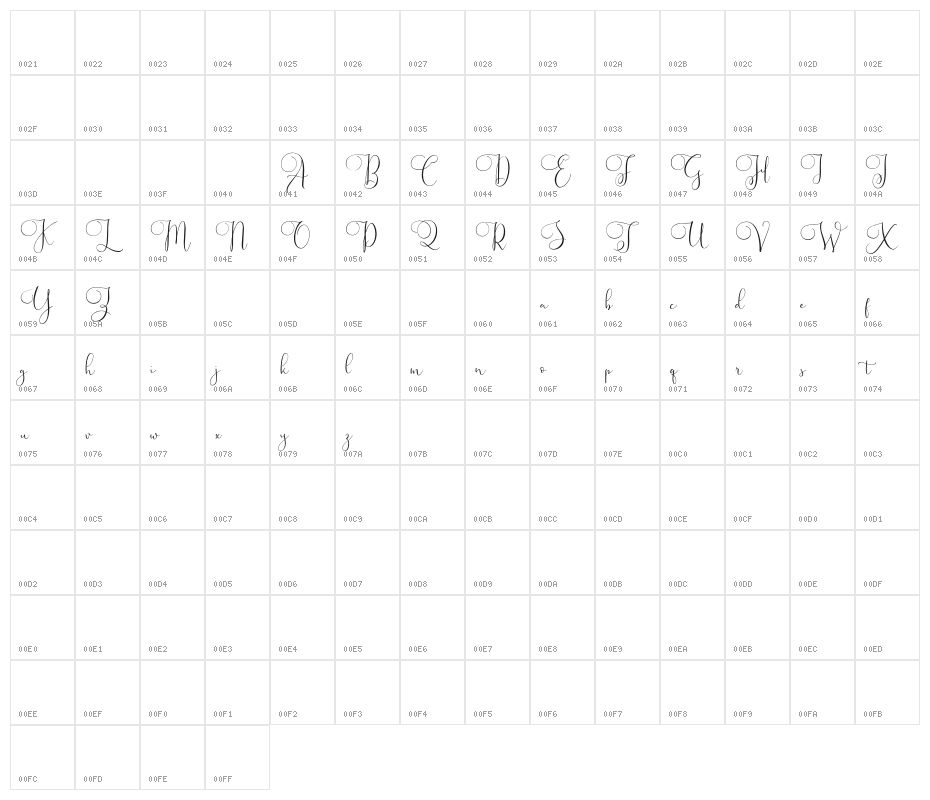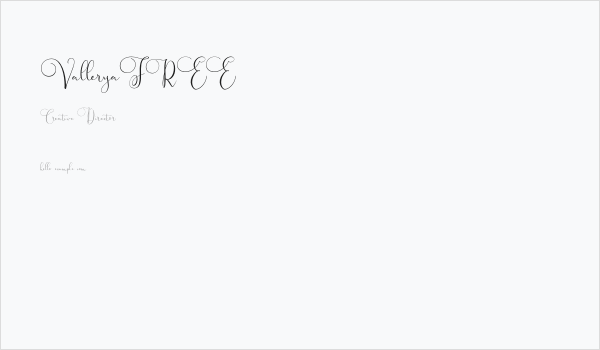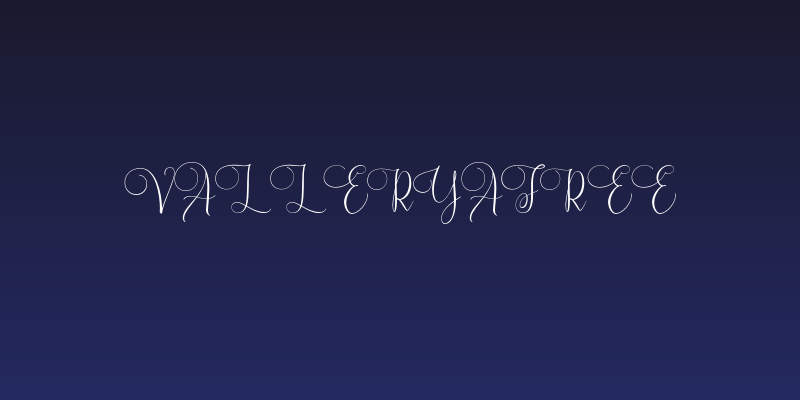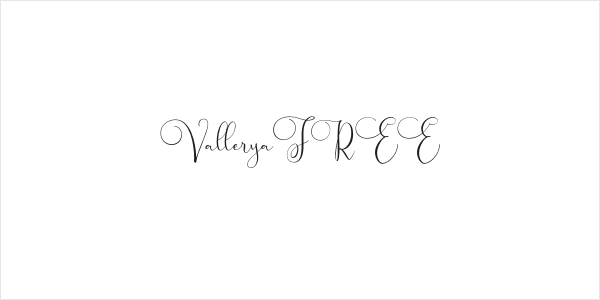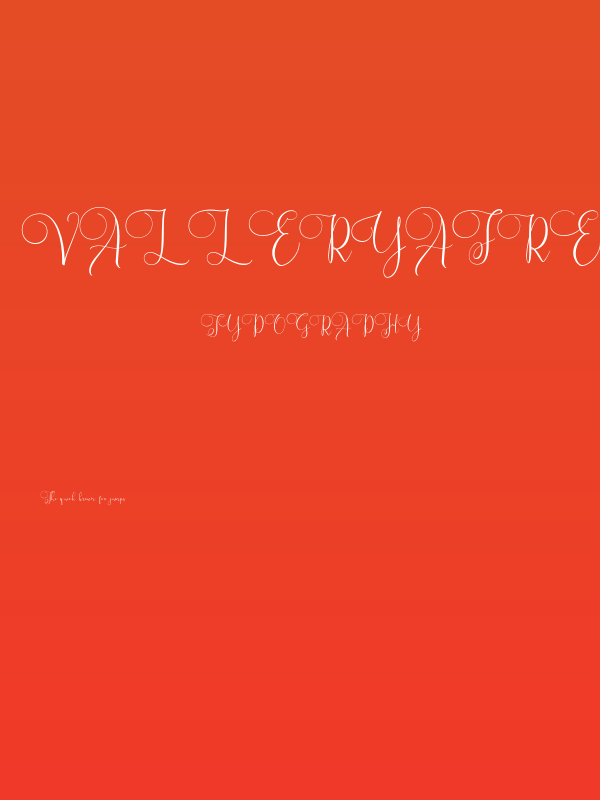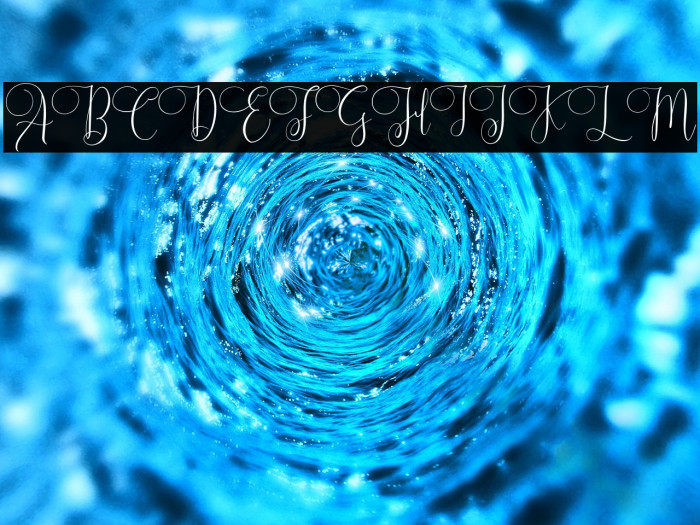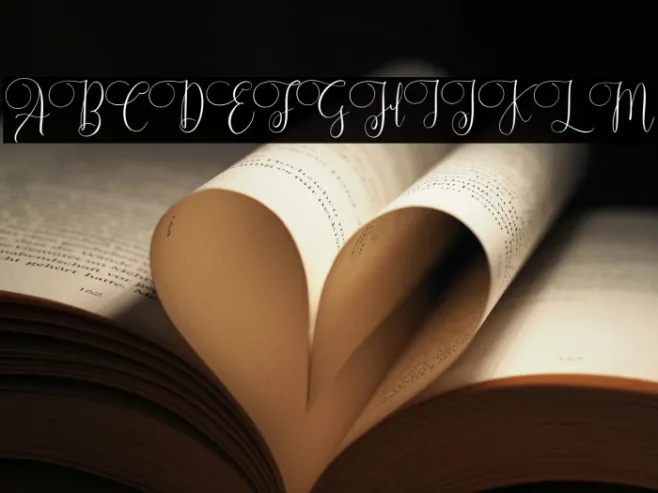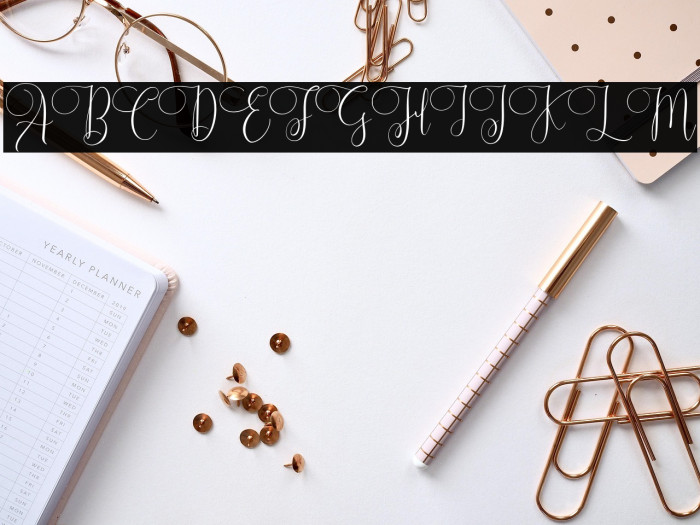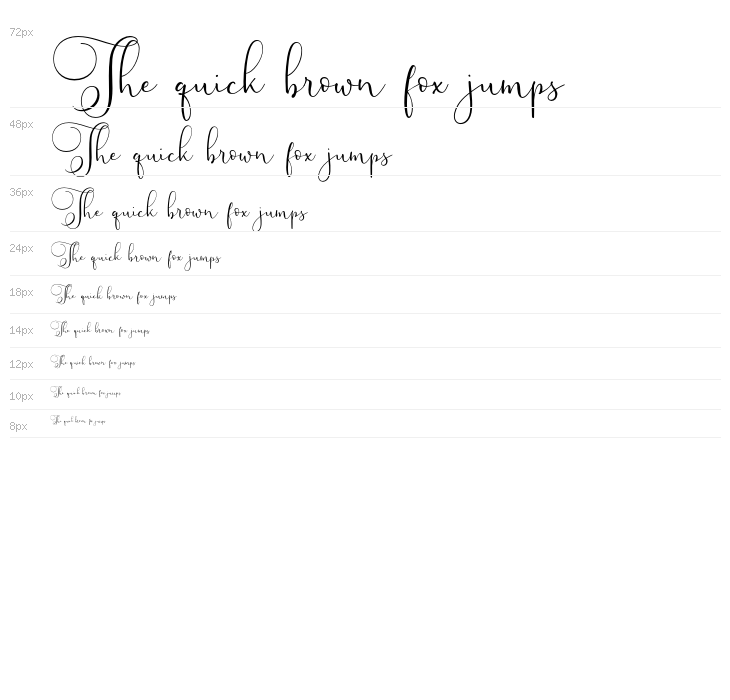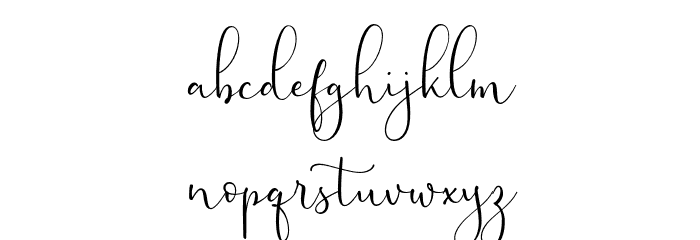
ValleryaFREE Font
ValleryaFREE Description
This font features an elegant and flowing script style, characterized by its intricate swirls and loops. The uppercase letters are particularly ornate, with extended flourishes that give a sense of movement and grace. The lowercase letters maintain a consistent style, with smooth connections and a slightly more restrained use of embellishments. The overall appearance is sophisticated and artistic, making it suitable for formal invitations, branding, and decorative purposes. The font's delicate lines and high contrast between thick and thin strokes enhance its visual appeal, while the generous spacing between characters ensures readability.
| Use Case | Logos, Invitations, Decorative Text |
| Proposed Projects | Ideal for wedding invitations, luxury branding, greeting cards, and decorative signage. |